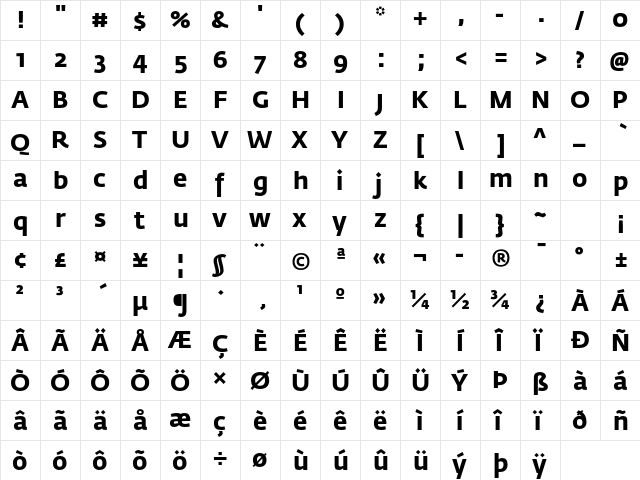
Fedra Sans Std Bold
Design Context for Fedra Sans Std Typeface
Fedra Sans Std is a composed and adaptable typeface that performs quietly and consistently across a wide range of design contexts. The heavy weight commands attention and anchors typographic hierarchies.